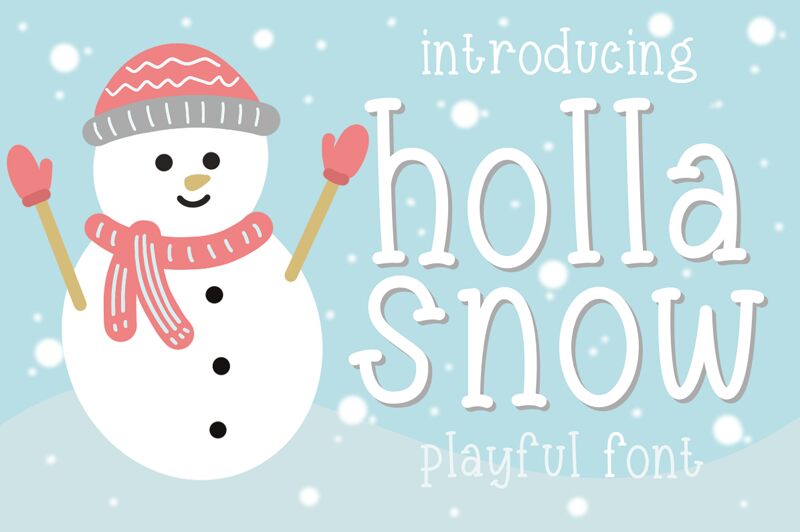
Holla Snow by Hallotudio is a delightful handwritten font with a semi-light weight perfect for playful designs. With its unique and whimsical style, this font is ideal for greeting cards, invitations, posters, and social media graphics. Use it to add a touch of fun to children's book covers or to create eye-catching headlines on websites or blogs. Holla Snow's handcrafted charm is sure to captivate your audience and bring a smile to their faces. Try it out today and let your creativity run wild!